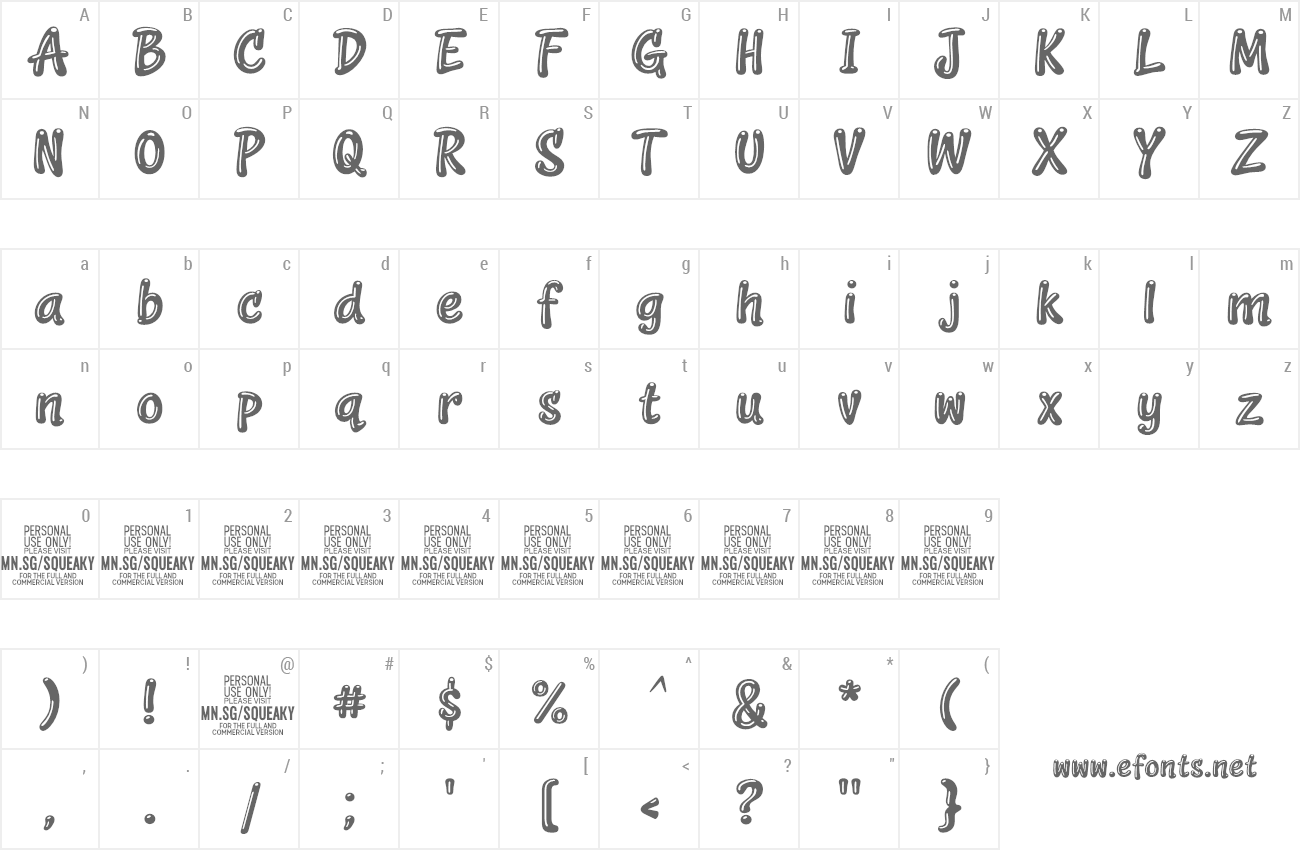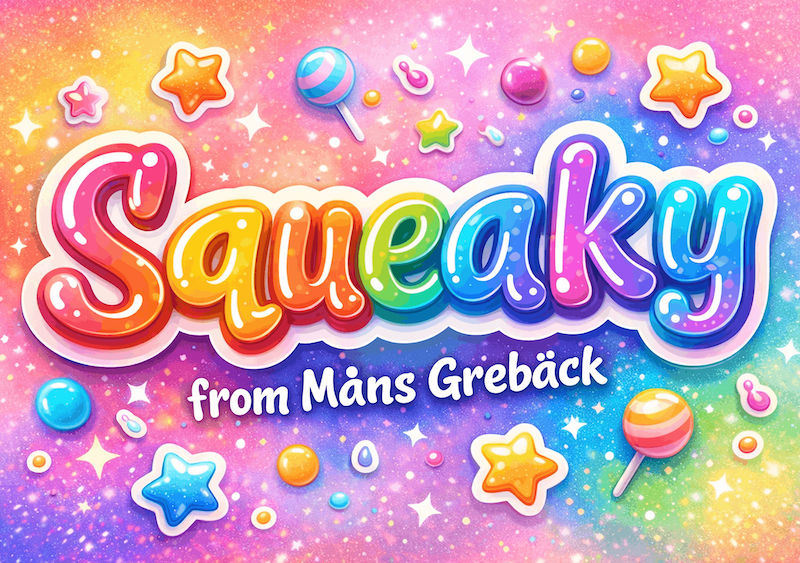
Preview and download Squeaky Font. Created by Måns Grebäck in Fancy Cartoon styles with Free for personal use license.
NOTE: This font is for PERSONAL USE ONLY! To purchase a commercial license, visit: https://www.mansgreback.com/product/squeaky Squeaky is a playful display font with a soft, bouncy rhythm and a friendly tone. Its rounded shapes and quirky flow give the lettering a lively personality. For questions, please visit https://mansgreback.com/faq |